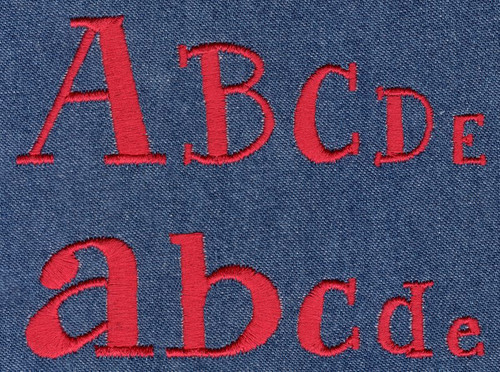
451 Amanda Solid Satin Font
Amanda Solid Satin Font comes in 0.5", 0.75", 1", 1.25" and 1.5" heights base on the capital "A". Characters are finished in Satin Stitch. All sizes are included in the purchase price and include uppercase letters, lowercase letters, numbers and four punctuation marks.